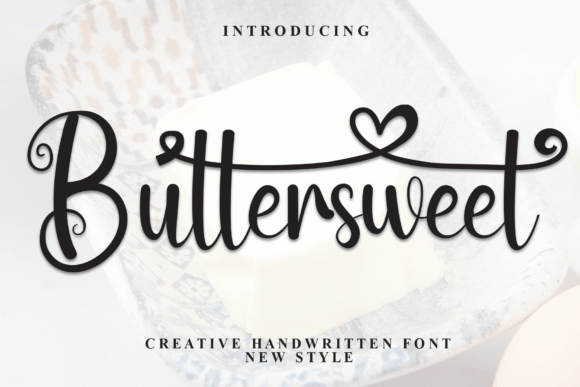
The Perfect Recipe for Whimsical Designs
Have you ever been brainstorming ideas for a special project and suddenly, a spark of creativity hits you? Maybe it’s the perfect combination of colors, a quirky illustration, or a font that makes everything fall into place. For me, that spark came when I stumbled upon the Buttersweet Font – a charmingly adorable, handwritten display font that instantly evokes warmth and playfulness.
Whether you’re crafting wedding invitations, heartfelt greeting cards, or any design project yearning for an infusion of whimsy and joy, Buttersweet Font is the perfect ingredient to add that special touch. Its lighthearted charm and delight will propel your designs into a realm of cheer and enchanting elegance, making it a valuable addition to any designer’s toolkit.
Buttersweet Font Key Features
- Font Family: Buttersweet Font
- Unique Characteristics: This font features a unique blend of sweetness and sophistication, making it perfect for wedding invitations, greeting cards, and other creative projects.
Buttersweet Font Review
When I first laid eyes on Buttersweet Font, I was immediately drawn to its ✨ playful and whimsical feel. The font is perfect for adding a touch of sweetness to your designs, whether it’s for a bakery, a children’s brand, or a project that just needs a bit of whimsy. The font’s rounded edges and soft curves make it a joy to work with, and the many variations in weight and style give you plenty of options for customizing your design.
The font is also very versatile and can be used in a variety of contexts, from headings to body text. It’s particularly effective for titles and subtitles, where its ✨ large x-height and well-spaced characters make it easy to read.
- ⚠️ Limited support for non-English languages: While the font does contain some accented characters, it’s not comprehensive, which may limit its use for designs targeting non-English speaking audiences.
- ⚠️ May not be suitable for formal or professional designs: While Buttersweet is perfect for playful designs, it may not be the best choice for more formal or professional projects, where a more traditional or formal font may be more suitable.
Overall, Buttersweet Font is a fun and versatile font that’s perfect for adding a touch of whimsy to your designs. While it may have some limitations, it’s well worth considering for the right project.
The Buttersweet Font is a playful, cursive font that works well for:
- Birthday invitations and party decorations
- Wedding stationery and decorations
- Children’s book illustrations and design
Remember to use the font in moderation and balance it with other design elements to avoid overwhelming the viewer.